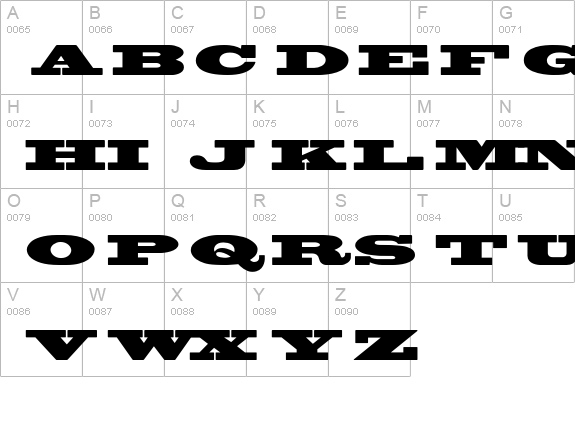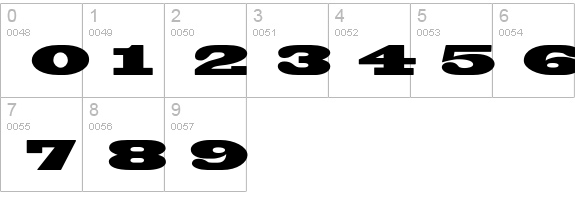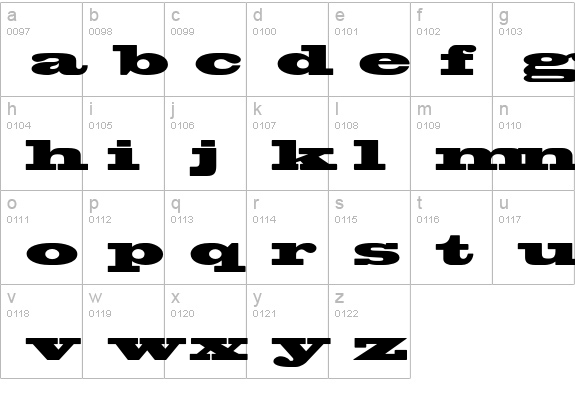
Blackoak Std Font Details
Blackoak Std is a classic and elegant serif font that exudes sophistication and timelessness. With its clean lines and distinctive serifs, this font is perfect for projects that require a touch of refinement and professionalism. Whether you're designing a logo, creating invitations, or crafting a brand identity, Blackoak Std will elevate your work to the next level. The best part? Blackoak Std is completely free to download at FontsMarket.com. This means you can access this high-quality font without breaking the bank, making it a valuable addition to your design toolkit. Don't miss out on the opportunity to enhance your projects with the beauty and versatility of Blackoak Std. Download it today and see the difference it can make in your designs.